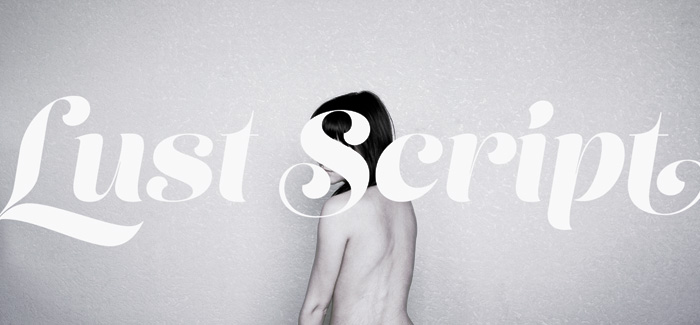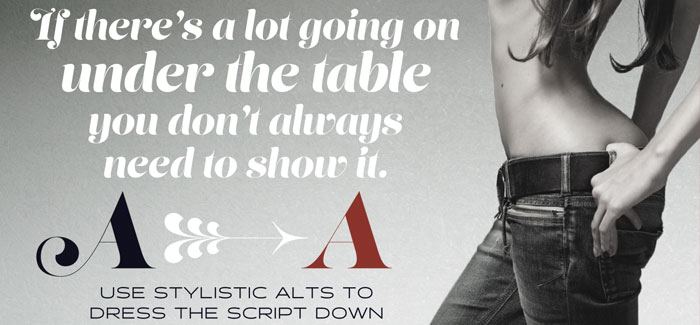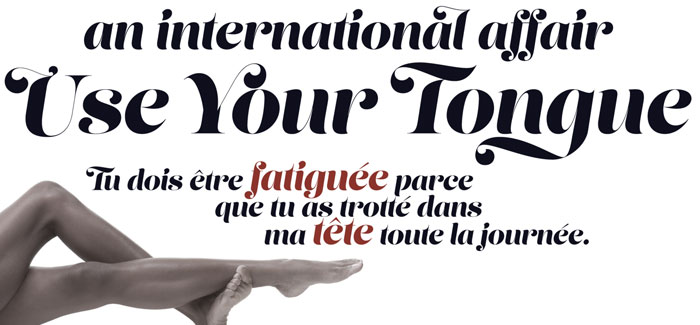
Lust Script font
Lust Script font – sexy as the flowing curves of a woman’s body.
The beautiful script is designed by Neil Summerour and publisherd by Positype. Its lots of contrast, almost demure, coy contrast mixed with the flowing curves of a woman’s body, incomplete, almost teasing ball terminals, and serifs that went on forever… so sharp they would draw blood if you touched them.
Lust Script font is packed with alternates to play with… enough to turn you on and satisfy. Utilizing the OpenType features (and Glyph palette) wisely will have you weaving through endless variations of Stylistic, Contextual, Titling, Historical and Swash alternates.